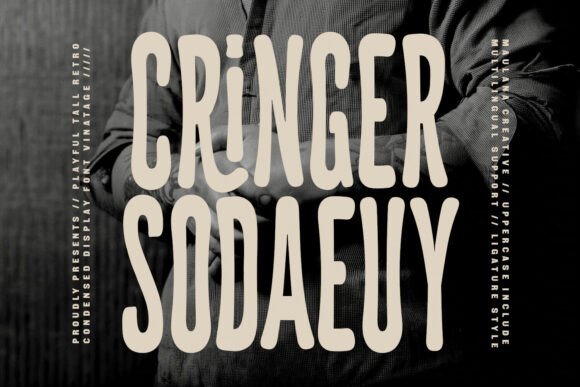
Cringer Sodaeuy: A Playful Condensed Display Typeface
Finding a display font that brings warmth and character without compromising a clean on-screen presence can be surprisingly difficult. Cringer Sodaeuy bridges that gap. Its tall, condensed letterforms carry a distinct hand-drawn charm, while the soft, rounded terminals and irregular baselines keep every word feeling approachable. For web designers, UI creators, and anyone building digital brand experiences, this typeface opens up a range of expressive possibilities that feel both crafted and intentional.
A Distinct Voice for Digital Spaces
Cringer Sodaeuy doesn’t aim for neutrality. The moment it appears in a headline you notice the interplay between vertical efficiency and a slightly whimsical rhythm. Letters like ‘R’, ‘S’, and ‘g’ wobble ever so gently, as if drawn with a marker on textured paper. This isn’t a cold geometric construct; it’s a font with a heartbeat. Yet the compact width keeps a layout anchored. In a browser, that tall x-height and tight set-width help large copy sit proudly without sprawling horizontally, making it a natural fit for hero areas, statement headers, and short bursts of text that need to carry emotional weight.
Graphic designers often speak of a typeface’s voice, and here the voice is friendly, curious, and slightly retro. It recalls vintage sign painting, yet the smooth edges and consistent contrast make it remarkably comfortable on high-resolution screens. That balance between handmade texture and digital clarity is what sets Cringer Sodaeuy apart from more rigid condensed fonts or overly quirky novelty styles.
Where Tall Meets Playful on the Screen
The condensed structure isn’t just an aesthetic choice; it solves practical layout problems. On a landing page, horizontal real estate is precious. Cringer Sodaeuy lets you create oversized headlines that still respect the flow of imagery, icons, and whitespace. For responsive designs, that narrow footprint means fewer line breaks on smaller viewports, preserving the punch of a key message without harsh truncation.
Consider a hero banner for a creative agency. A monochromatic photograph sits behind a large, softly lit headline. In that context, the irregular forms of Cringer Sodaeuy introduce movement against a static background. The letters seem to dance, yet the tight rhythm of the word stays readable. That’s exactly the kind of subtle energy a landing page needs to keep a visitor’s eye moving toward a call-to-action.
Applying Cringer Sodaeuy to Headers, Buttons, and Focal Points
This typeface works best as a primary voice for key messaging. Use it in h1 and h2 tags where you want to establish personality immediately. For a product landing page, a single line like “Handmade with joy” set in Cringer Sodaeuy can soften the entire selling proposition. On a coaching or wellness website, the font’s gentle irregularities reinforce authenticity. A bold, all-caps treatment tightens the look for a boutique fashion store, while a mixed-case sentence feels more conversational for a podcast or blog.
For call-to-action buttons, restraint is advised. A short label such as “Join the waitlist” or “Explore the collection” can benefit from the font’s friendly character, but only at generous sizes. The irregular spacing and varying letter widths can reduce instant recognition at very small scales, so keep button text short and test readability on mobile. When used as a decorative accent—perhaps a single oversized letter styled as a drop cap or a subtle watermark element—Cringer Sodaeuy also adds depth without distracting from core navigation.
Readability and Visual Flow on Any Device
Display fonts often struggle on smaller screens because exaggerated shapes or tight apertures can blur at reduced sizes. Cringer Sodaeuy handles this better than most, partly because its rounded terminals prevent harsh pixelation at common screen resolutions. That said, the font performs best in headings above 24 pixels, and ideally above 32 pixels on mobile. Below that, the charming inconsistency can start to feel uneasy, especially when a user is scanning quickly.
When used for headline blocks, generous line-height is key. A value around 1.2 to 1.3 helps the tall letterforms breathe without losing their compact stacking. On dark backgrounds, the soft edges keep contrast smooth rather than stark, and a light cream or off-white text color can heighten the hand-painted feel. Overlaid on an image, a subtle text shadow or a semi-transparent backdrop preserves legibility without killing the font’s organic texture. I’ve found that white text with a 2% to 5% opacity dark overlay often works wonders for maintaining the type’s natural softness against busy photography.
Pairing Cringer Sodaeuy with Clean Body Text
Any display font needs a reliable partner for paragraphs and UI elements. Cringer Sodaeuy pairs exceptionally well with simple, neutral sans serif fonts that offer high legibility and zero drama. Think Inter, DM Sans, or Work Sans. Their uniform stroke widths and predictable spacing create a calm backdrop that lets the display face shine without visual competition. For an editorial tone, a serif like Source Serif or Merriweather can add a literary warmth that complements the hand-drawn feel, but I’d limit the serif to body copy rather than additional headings to avoid a cluttered voice.
When a typeface feels human and unforced, it can quietly build a foundation of trust. Cringer Sodaeuy signals that a brand doesn’t take itself too seriously but still cares deeply about craft. That subtle combination is magnetic for creative entrepreneurs, coaches, small studio owners, and design-forward startups. Applied thoughtfully across a site’s most visible touchpoints—hero titles, section dividers, announcement banners, and key CTAs—the font becomes a recognizable signature. Visitors may not consciously analyze type anatomy, but they’ll feel the difference between a generic bold and a letterform that looks like it was made just for them. In a digital space often filled with identically clean sans serifs, that emotional resonance is a genuine competitive advantage.